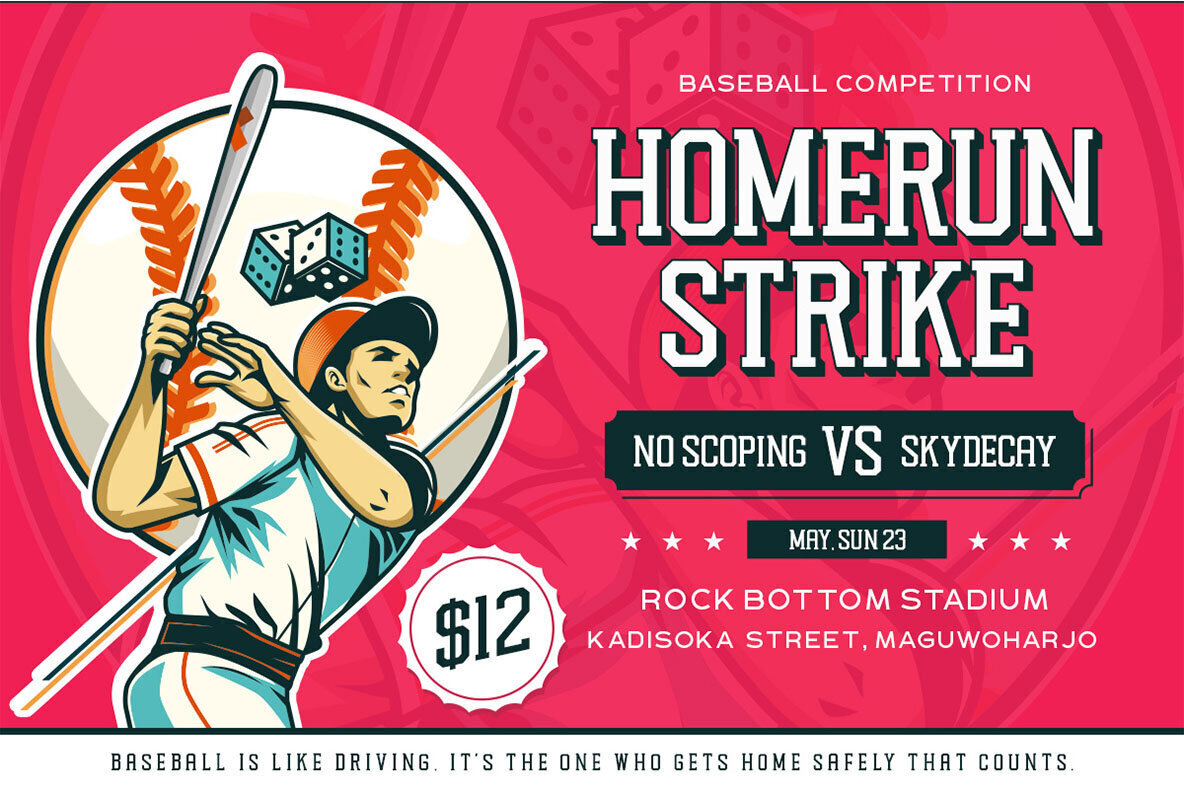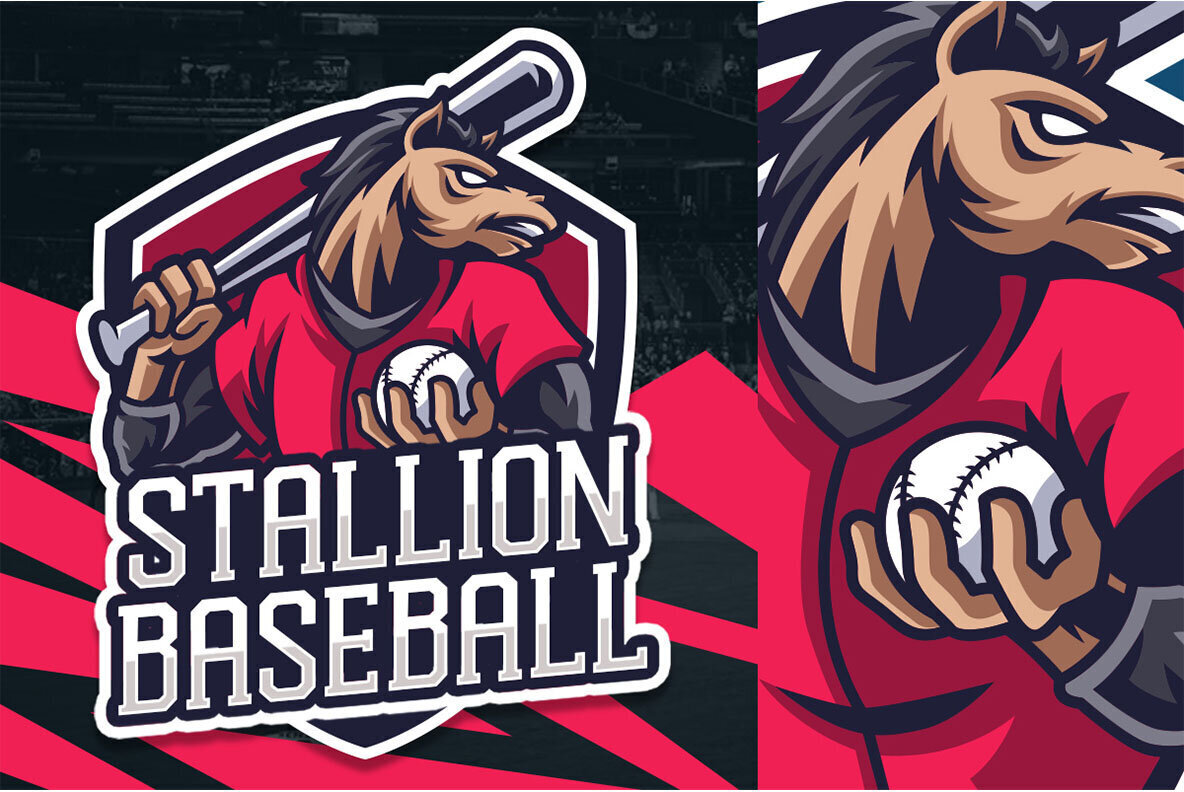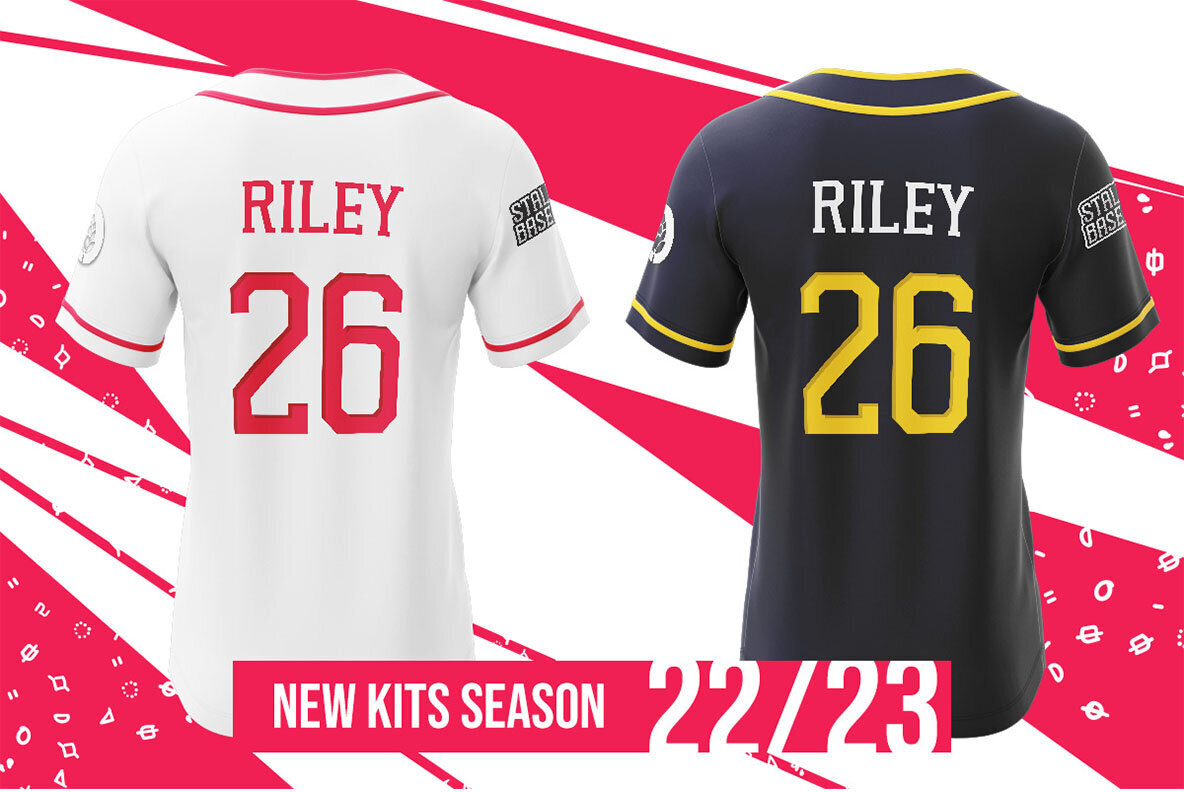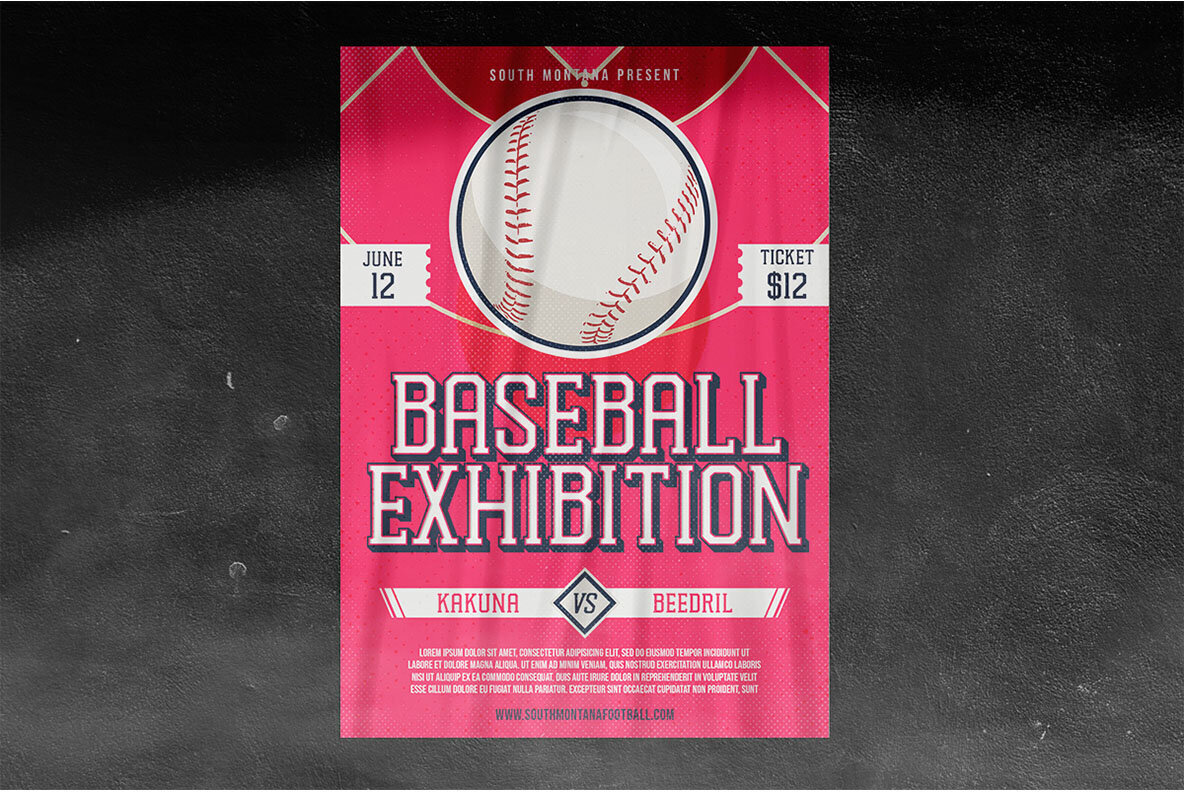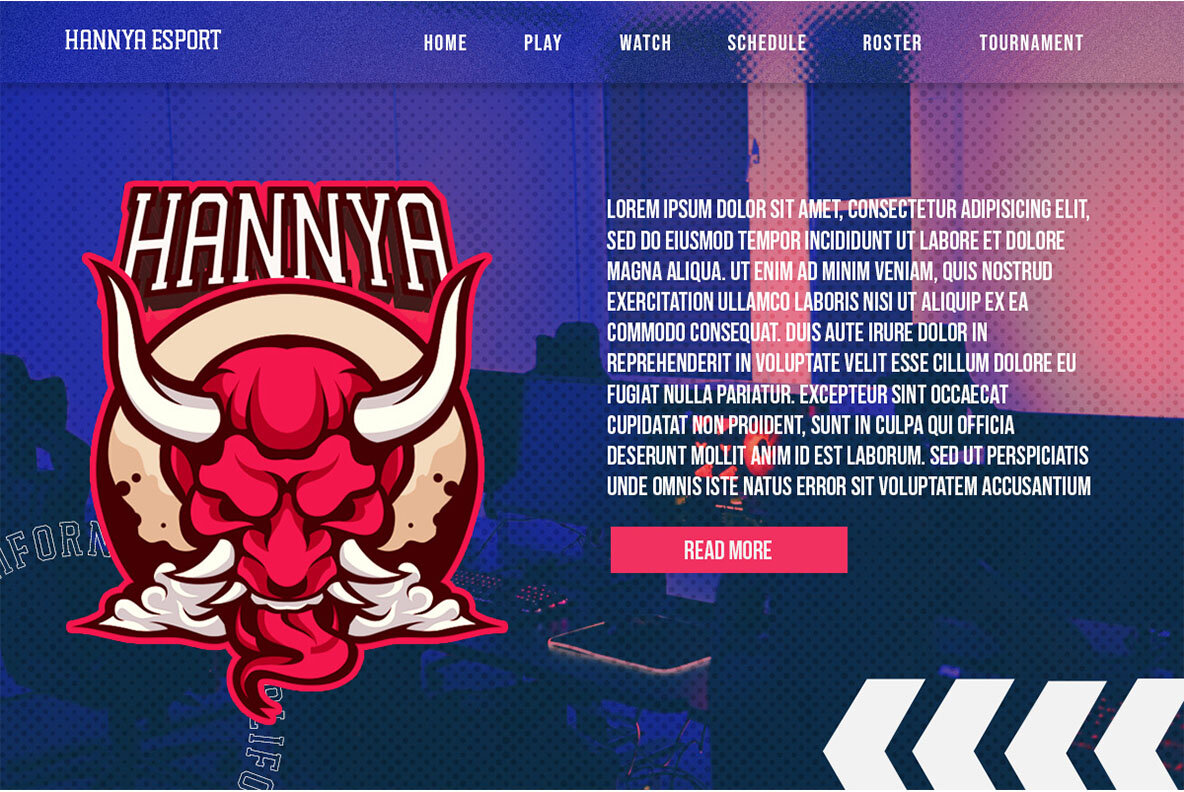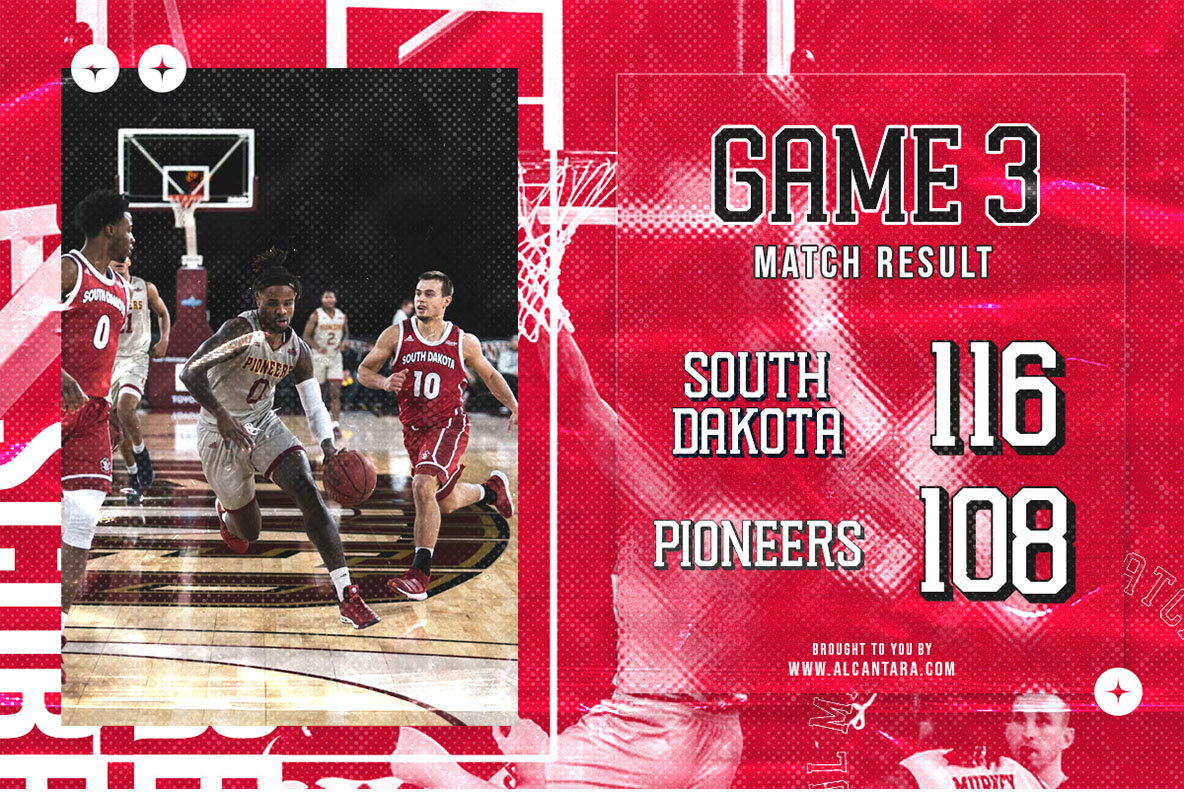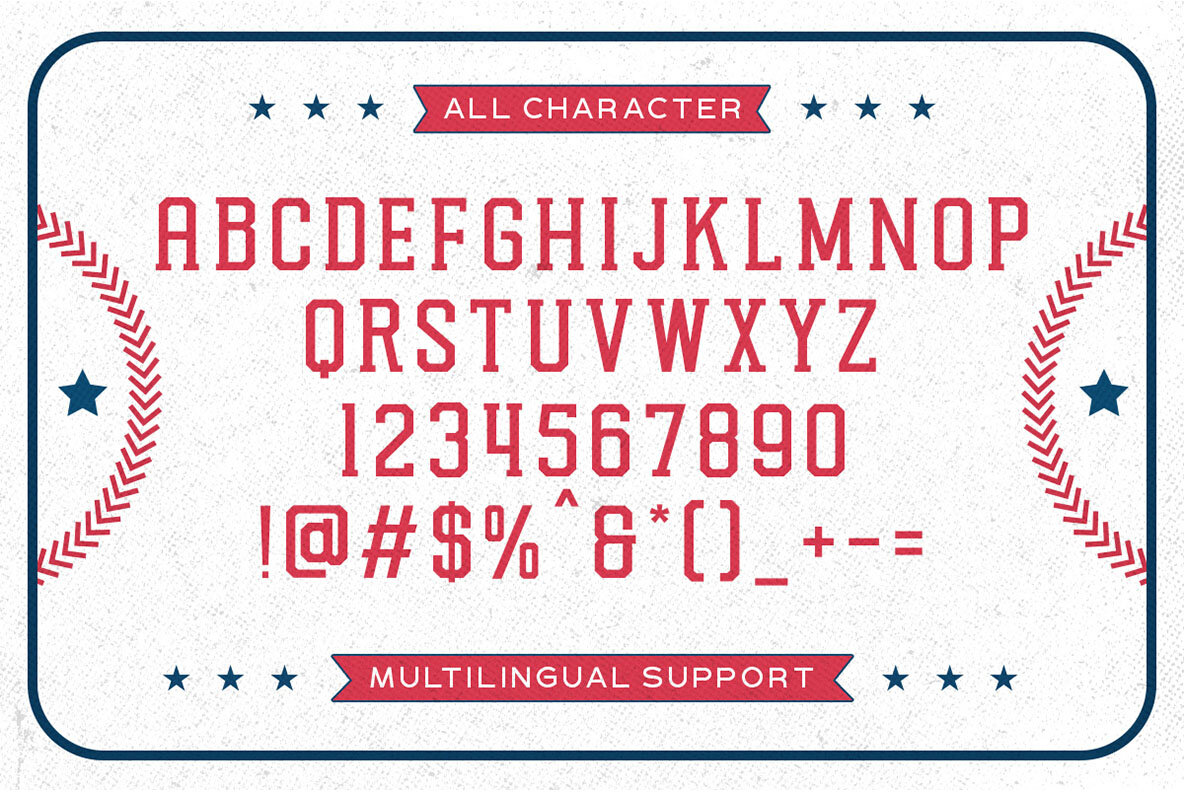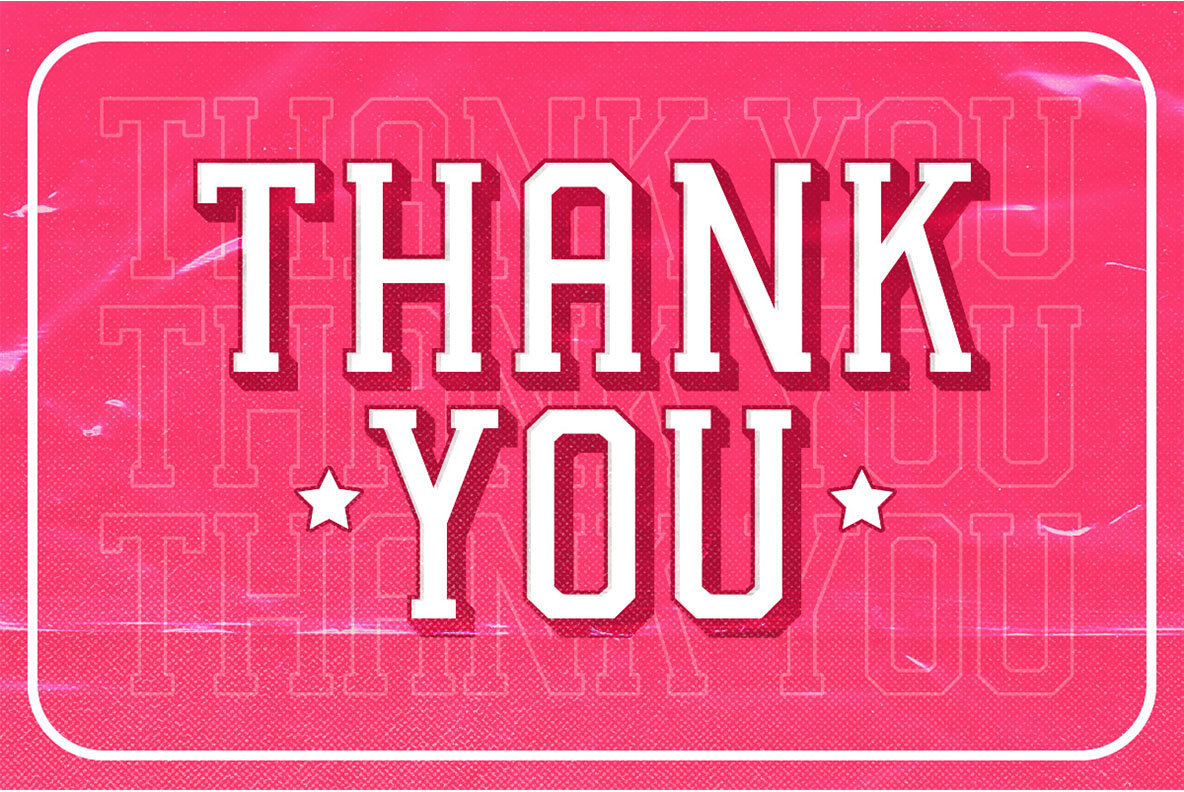
Chicago Shift Font
The Chicago Shift font is perfect for any sport-themed projects. With uppercase and lowercase letters, as well punctuation marks like periods or commas in addition to symbols, it will be difficult not find what you need! The stylistic alternates allow users even more customization options so they can make their branding stand out from the rest of competitors' designs.
- Numbers and punctuation
- Alternates and ligatures